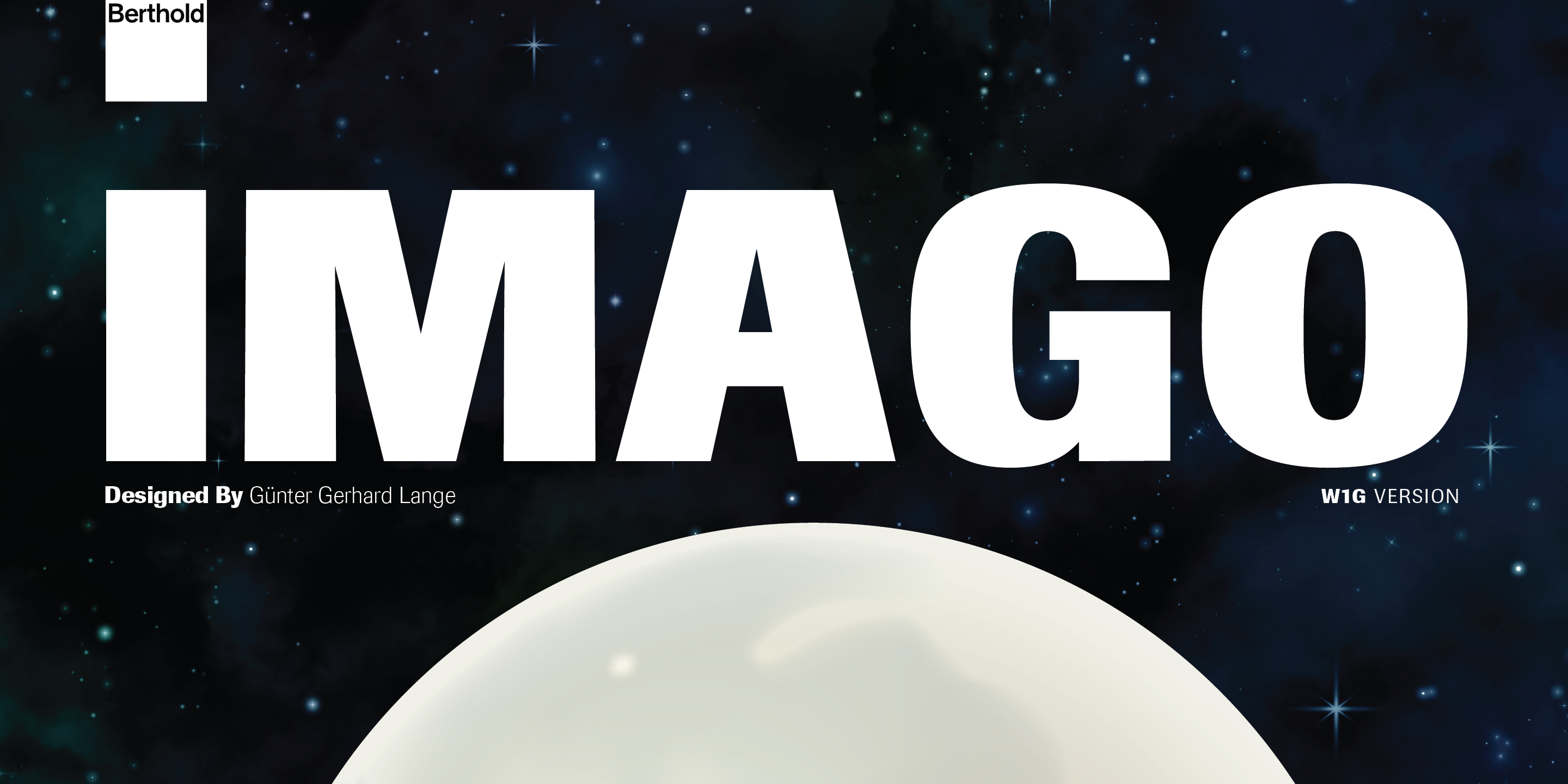
Imago W1G Font Free Download is an exceptionally modern and highly versatile sans-serif typeface, distinguished by its clean lines, open forms, and humanist warmth. It's ideal for designs that aim for a sophisticated, approachable, and universally legible aesthetic. Imagine it enhancing elegant corporate branding, intuitive digital interfaces, impactful information design, or high-quality editorial layouts. Its clear and balanced character also makes it an excellent choice for responsive website design, professional presentations, and any project where clarity and a refined, contemporary feel are paramount. Imago W1G Font offers the stylistic breadth and robust functionality to elevate your creative vision.
What makes Imago W1G Font truly exciting is its remarkable blend of minimalist design with a subtle human touch, ensuring excellent readability across diverse applications and languages. The "W1G" often signifies its optimization for Latin, Greek, and Cyrillic scripts, making it a powerful tool for global communication. This isn't just another sans-serif; it's a meticulously crafted font that brings a unique combination of universal legibility and modern elegance to any text. Designers appreciate its strong visual consistency and how it can effortlessly bring a cohesive and professional look to any project, making it a reliable choice for designs that demand both aesthetic quality and practical performance in a global context.
The Imago W1G Font family is typically comprehensive, offering an extensive range of weights to ensure maximum versatility across diverse design needs. You can generally expect to find a full spectrum of weights, from Thin and Light to Regular, Medium, SemiBold, Bold, and Black, often accompanied by their corresponding italic versions. This broad array allows for superb typographic hierarchy within your designs, enabling you to create dynamic and engaging visual compositions that maintain a consistent, high-quality aesthetic throughout. This makes Imago W1G Font Free Download a powerful asset for any designer seeking a typeface that is both functional and beautifully distinctive across multiple linguistic demands.